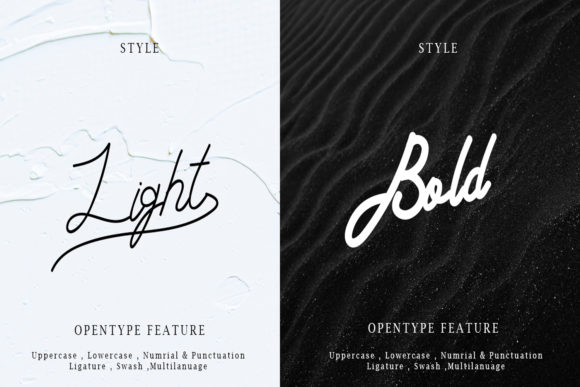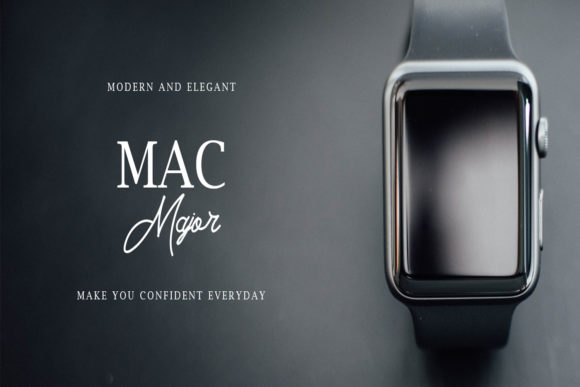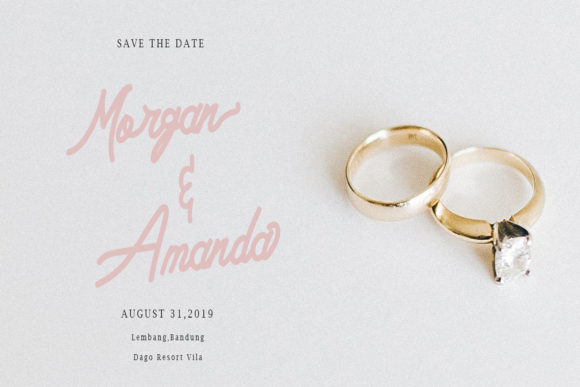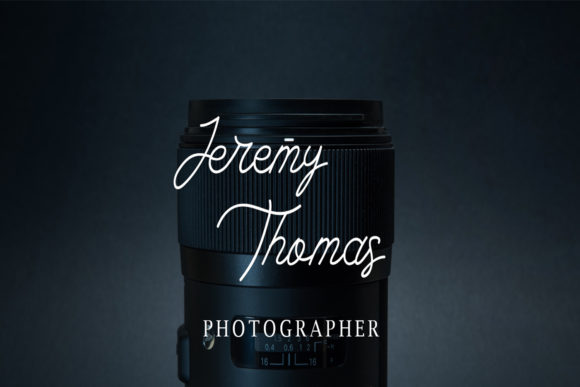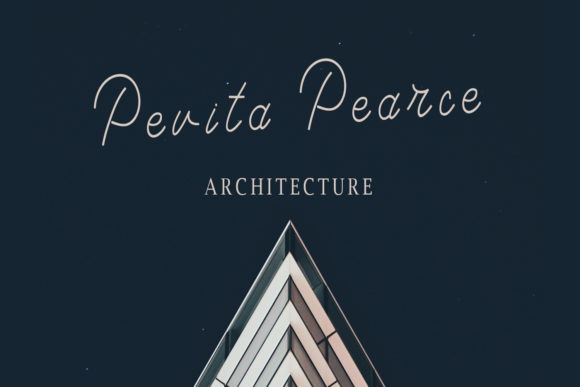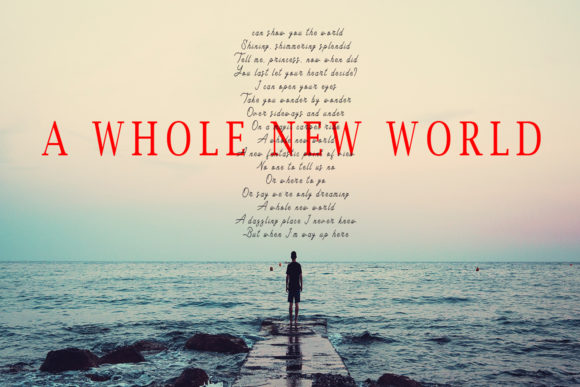
HomeScript FontsLaravel Font Script Fonts Laravel Font FacebookXPinterestWhatsApp Laravel Font Poster 2 Laravel Font Poster 3 Laravel Font Poster 4 Laravel Font Poster 5 Laravel Font Poster 6 Laravel Font Poster 7 About Laravel Font Laravel is an elegant and charming handwritten font with a simple twist. Get inspired by its authentic charm! DOWNLOAD NOW People also explored Simple Planner Font Catty Mouse Font Daughter Font Jasmine Font Staylight Font Cactus Font Aurellia Font Balisun Font Rounded Well Font 375 0 TagsLaravel Font Previous articleBlackout FontNext articleKing Lionel Font LEAVE A REPLY Cancel reply Comment: Please enter your comment! Name:* Please enter your name here Email:* You have entered an incorrect email address! Please enter your email address here Website: Save my name, email, and website in this browser for the next time I comment. Personal Use Free Amrina Personal Use Free Read more about this font Charletto Personal Use Free Read more about this font Eigha Personal Use Free Read more about this font Loopina Personal Use Free Read more about this font BLOG Fonts That Capture the Spirit of New York City New York City is more than just a place—it’s an experience, a rhythm, a visual language... 5 Fonts That Will Dominate Design Trends in 2026 Free Fonts Risk: Why Free Fonts Can Be Dangerous for Designers Modern Sans-Serif Fonts That Brands Love in 2025